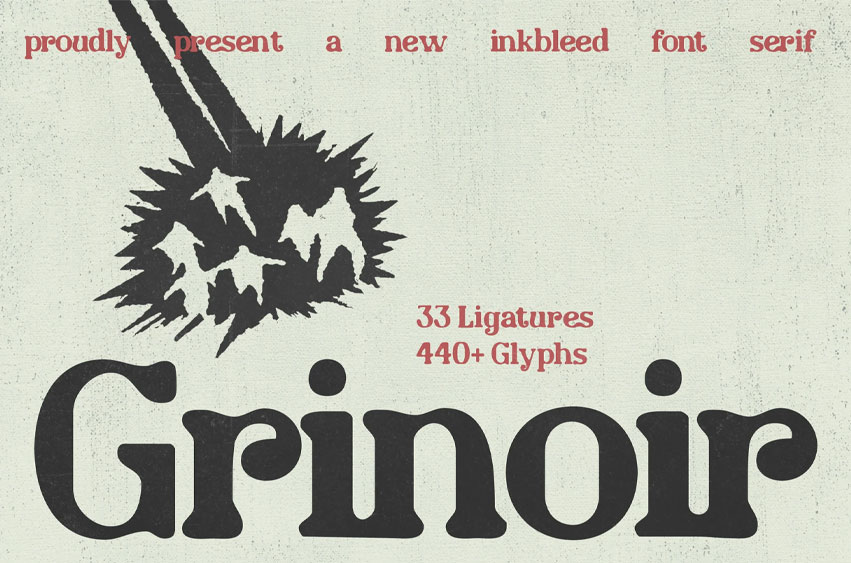
Grinoir Font
Grinoir Font is a bold ink bleed serif typeface that channels the raw, underground energy of vintage print culture, where ink bleeds into paper and every letterform carries weight, texture, and attitude. Built on heavy rounded serifs and tight, punchy proportions, Grinoir commands attention without asking for it.
Packed with 440+ glyphs and 33 carefully crafted ligatures, Grinoir is built for designers who demand depth and versatility. It’s the perfect choice for streetwear branding, sports merchandise, music posters, editorial headlines, tattoo-inspired graphics, apparel labels, and any project that lives on the bold, gritty side of design.
With its ink-soaked texture and retro-underground soul, Grinoir transforms even the simplest headline into a statement. This is a font that doesn’t just set type, it sets the tone.